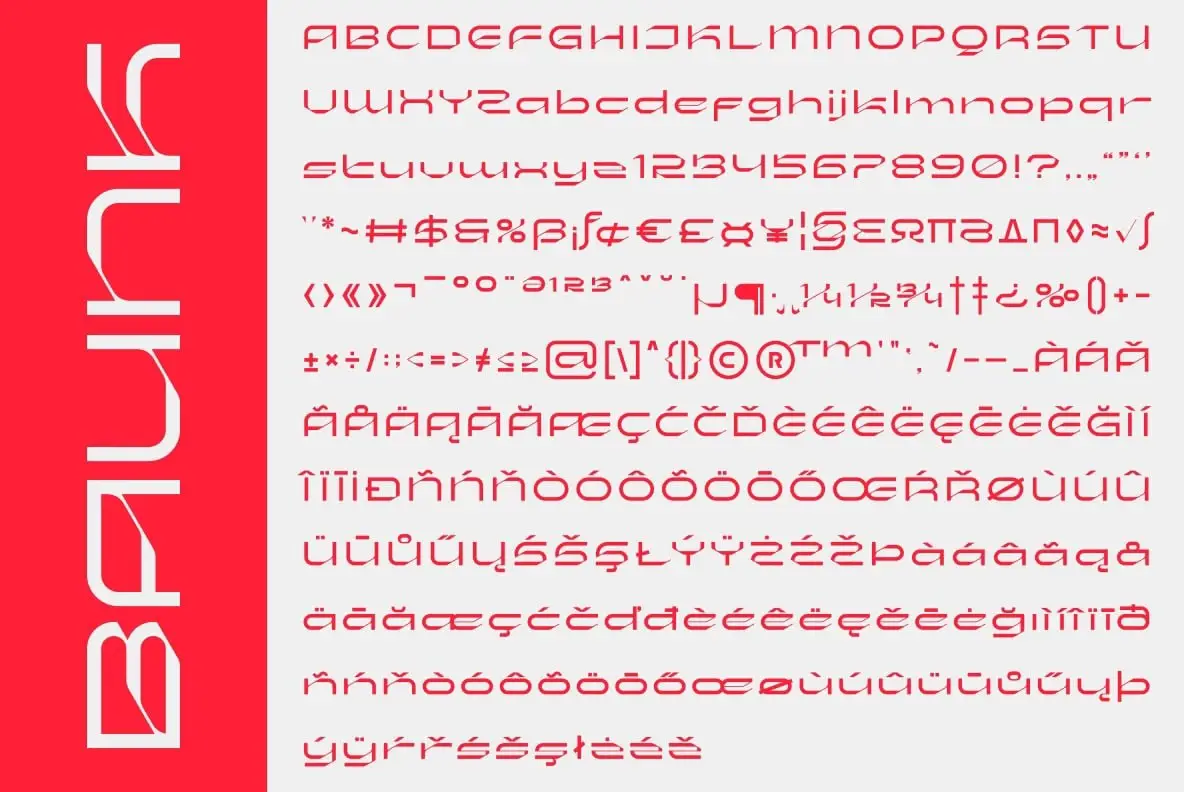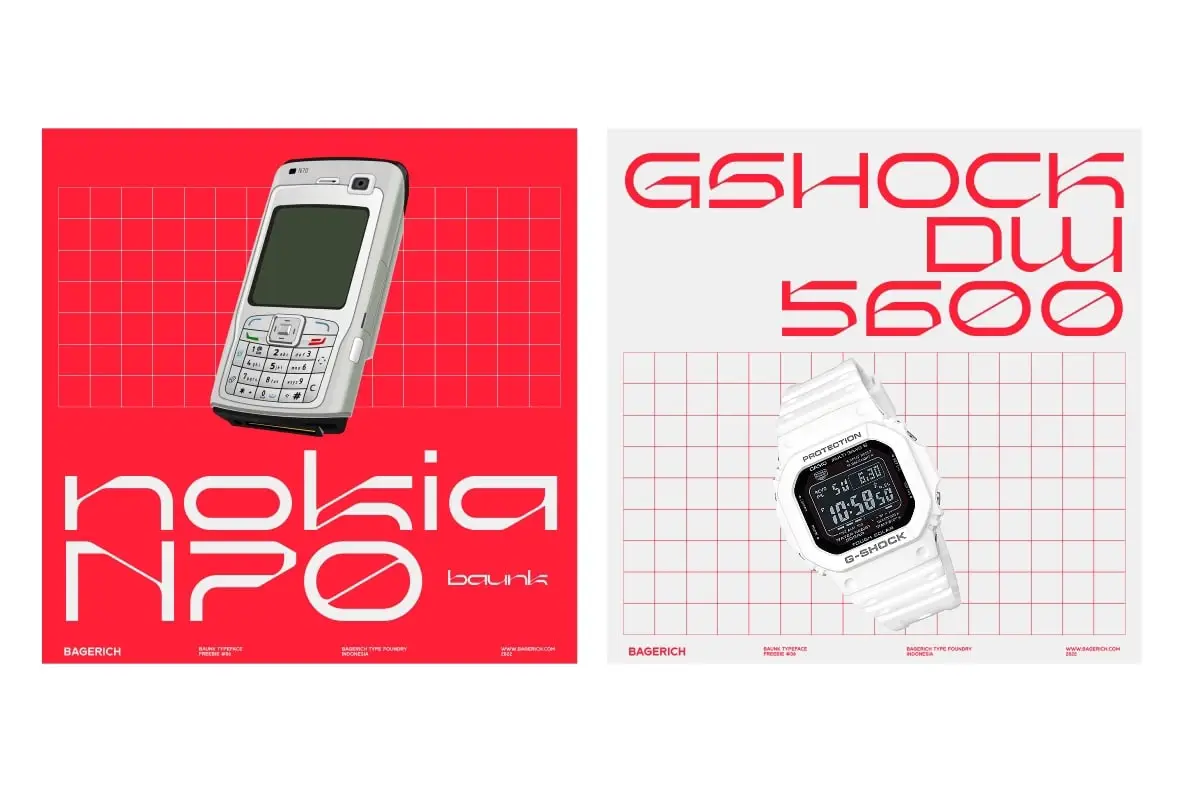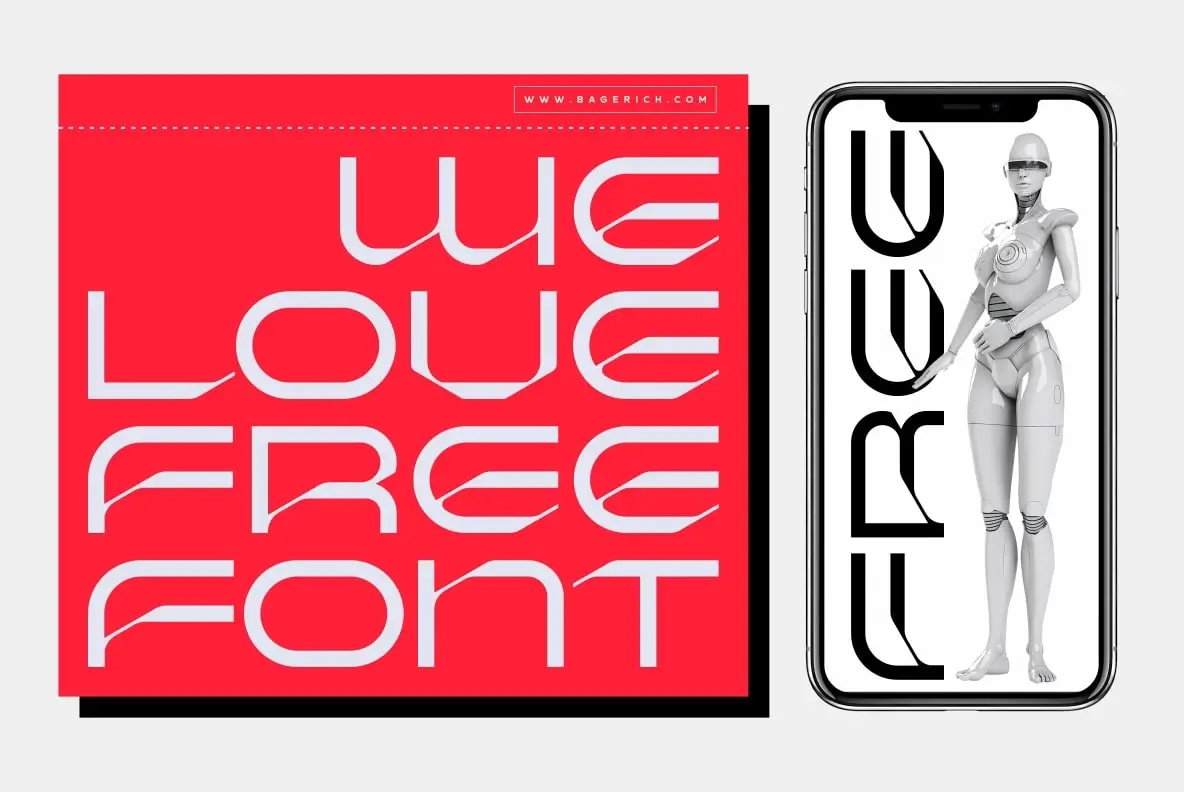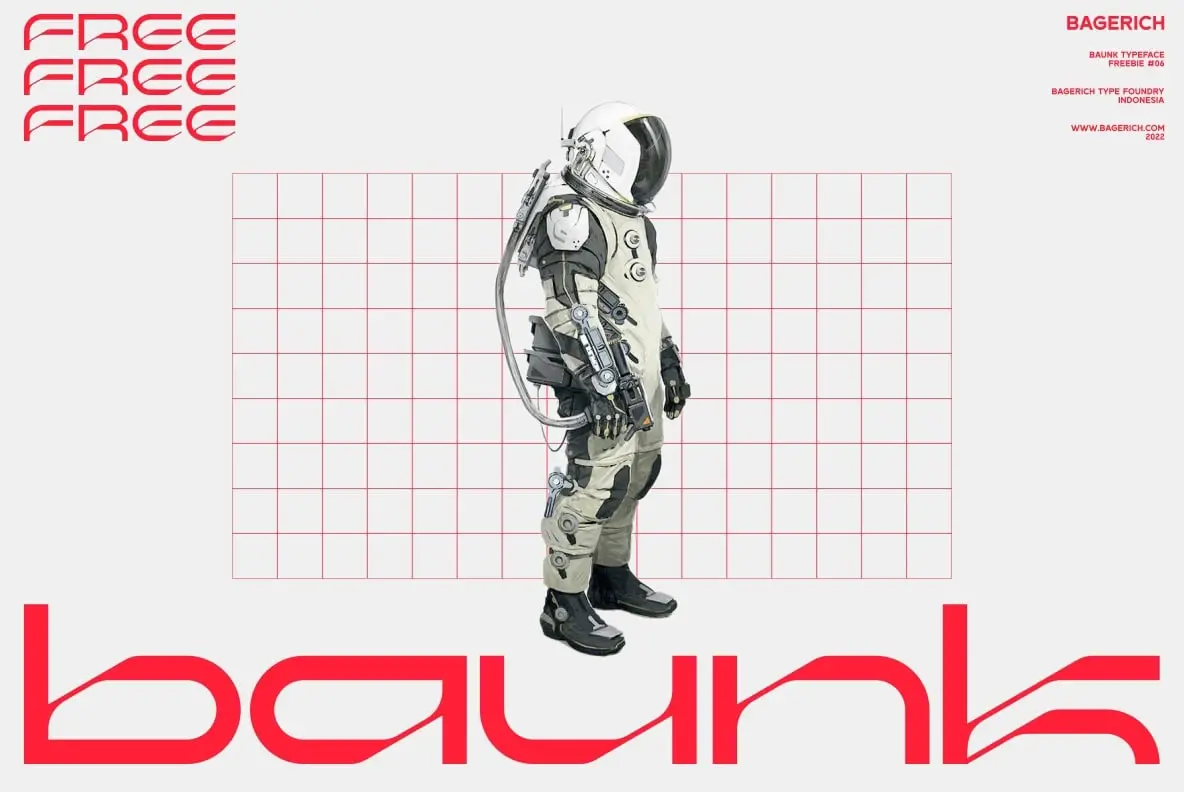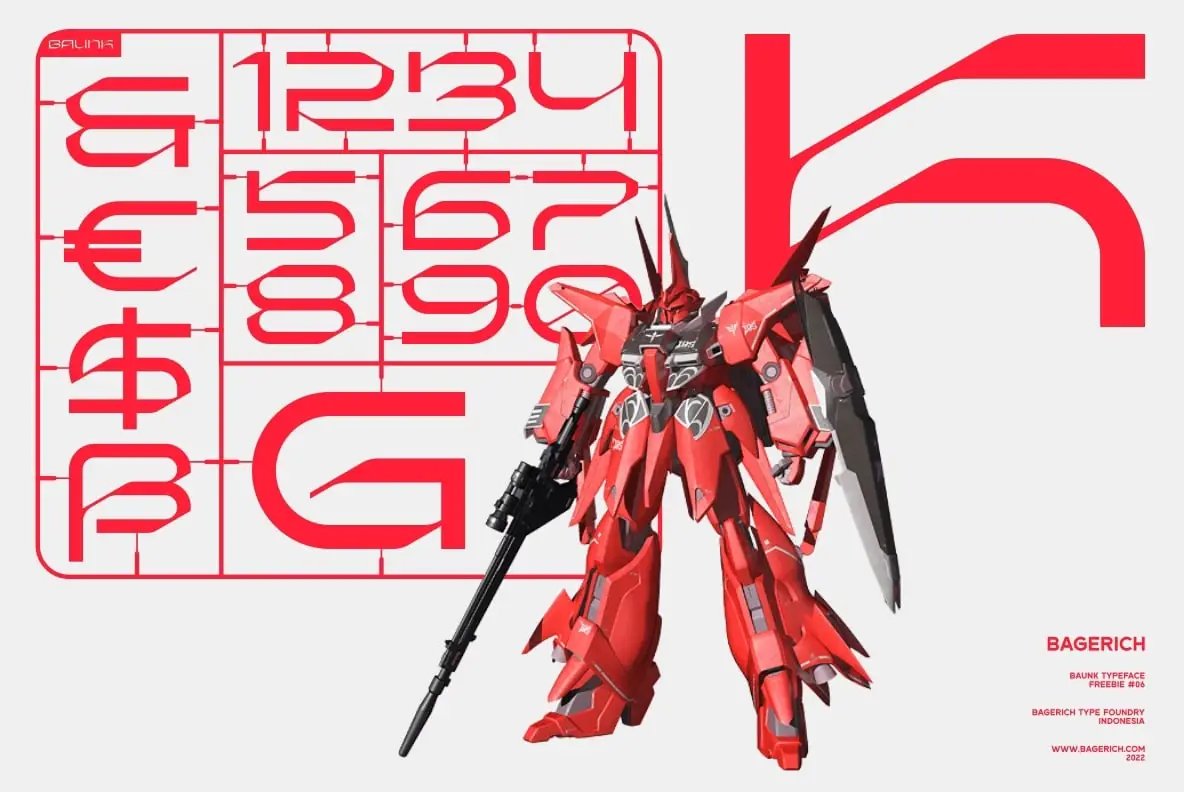
Baunk Typeface
The Baunk Typeface is a versatile and modern font that is perfect for a variety of design projects. With its clean lines and contemporary aesthetic, it is suitable for branding, logo design, web content, and print materials.
• Ideal for creating eye-catching logos and branding materials.
• Perfect for web design, ensuring readability and style.
• Use in print projects like brochures, business cards, and posters.